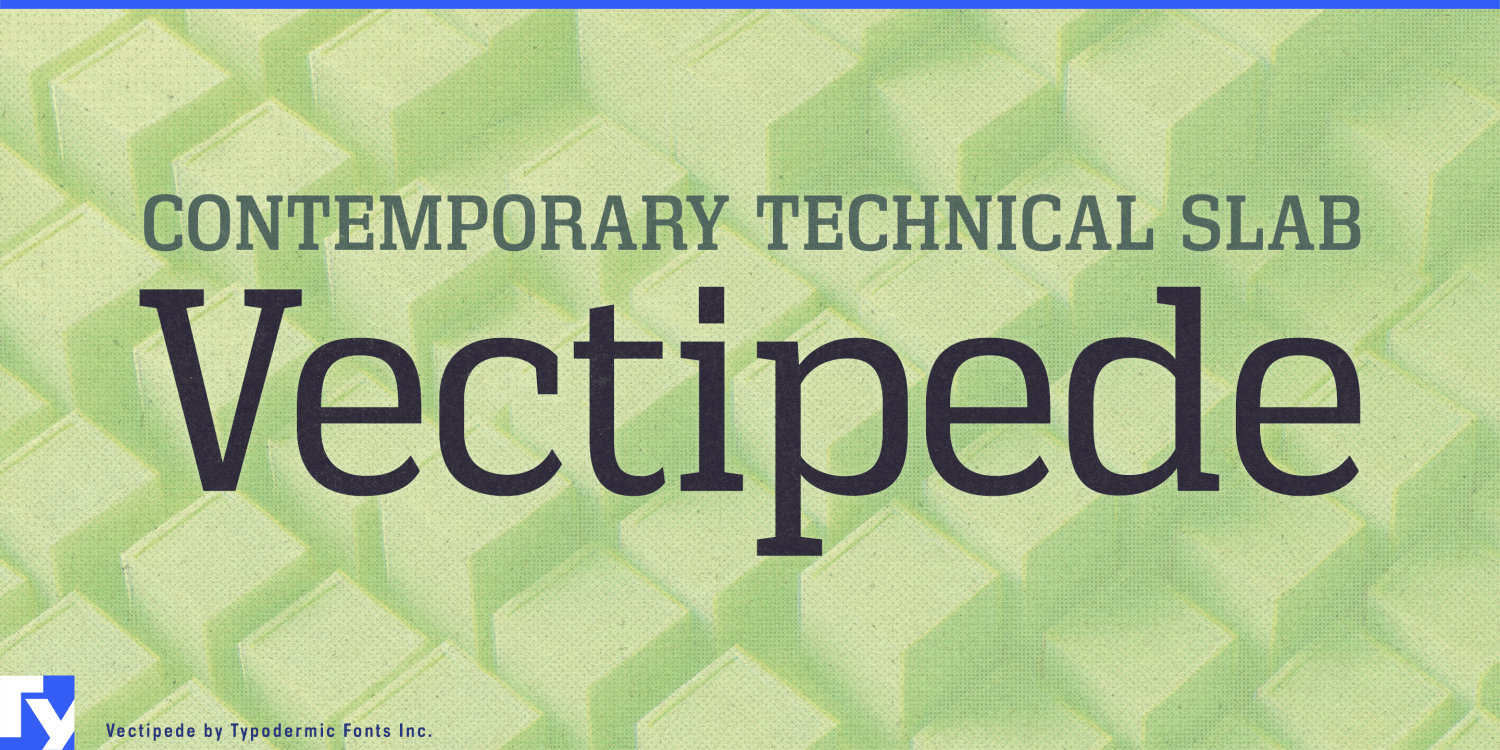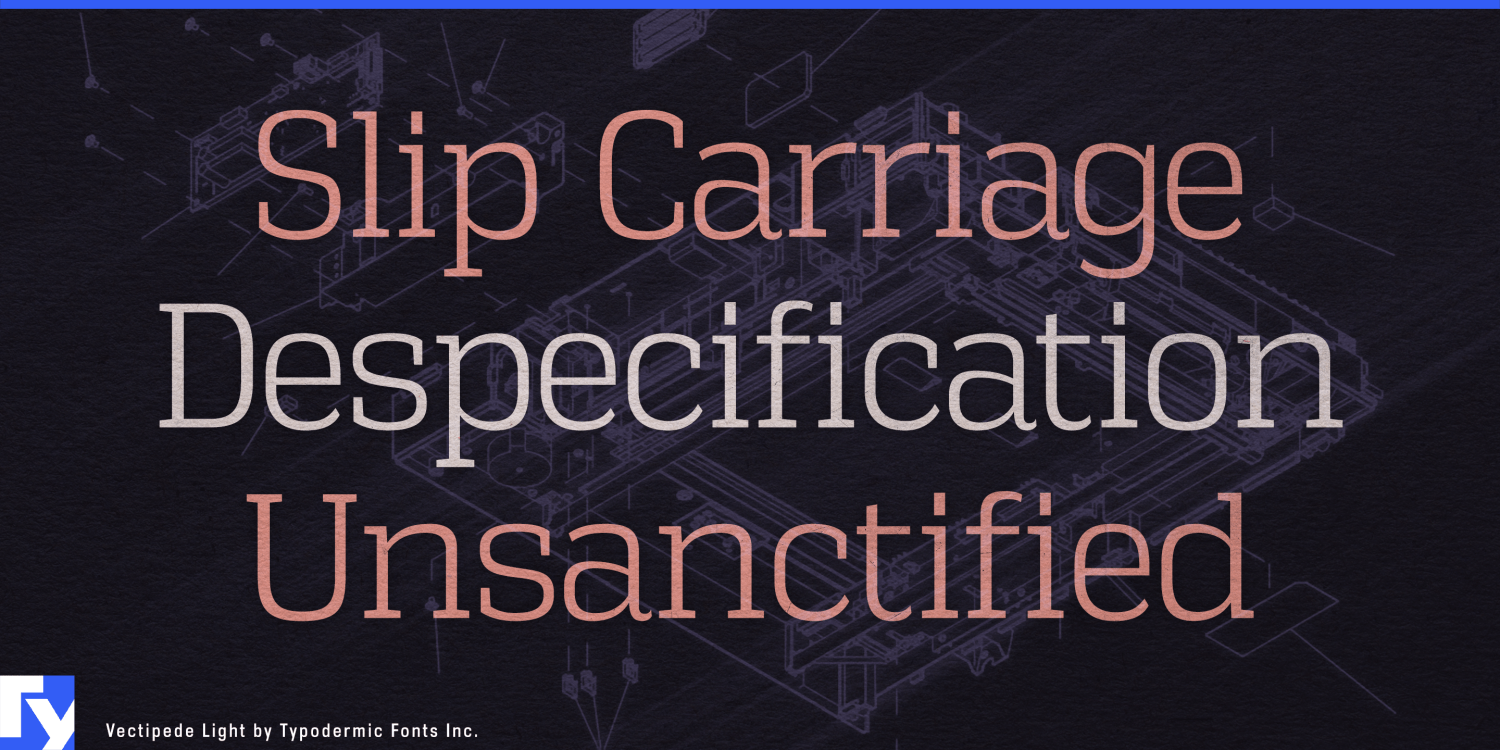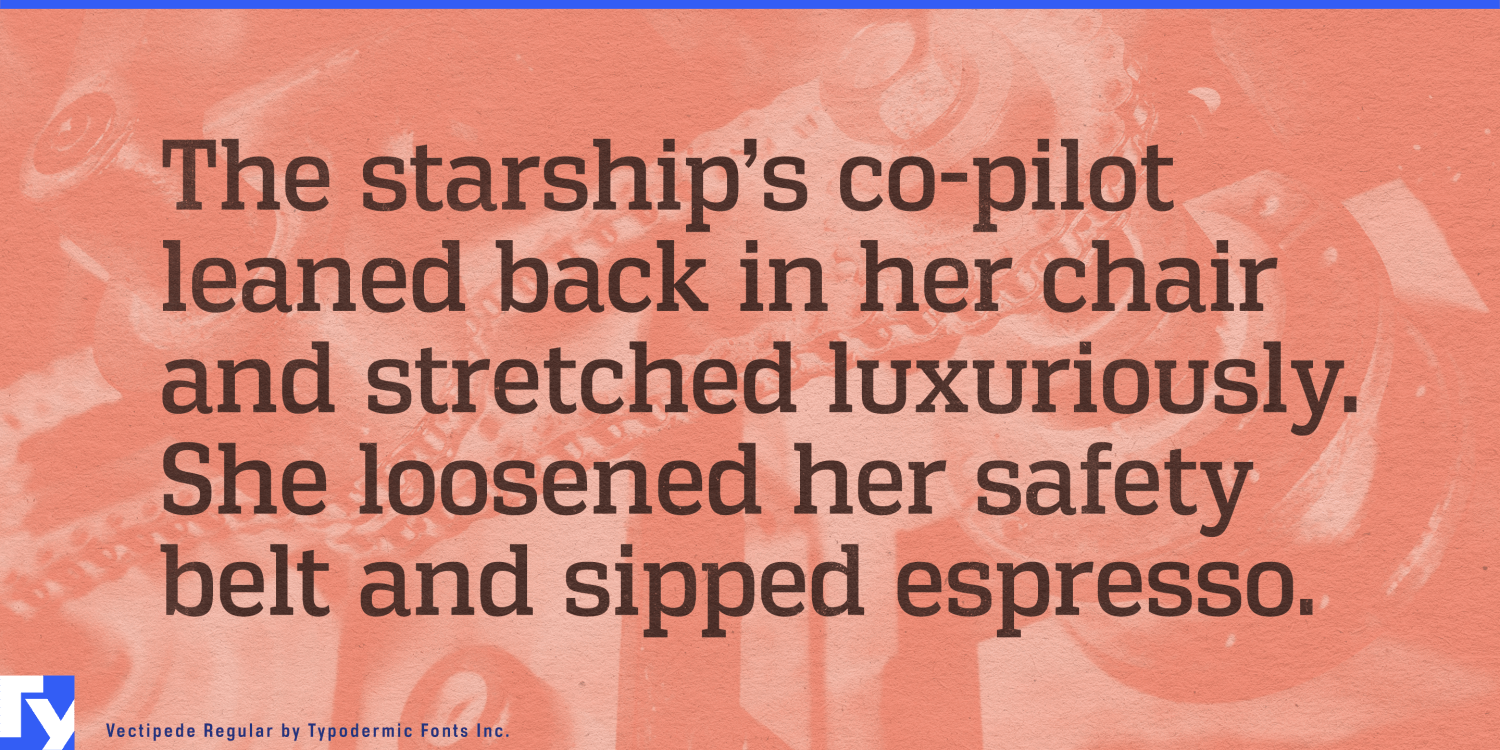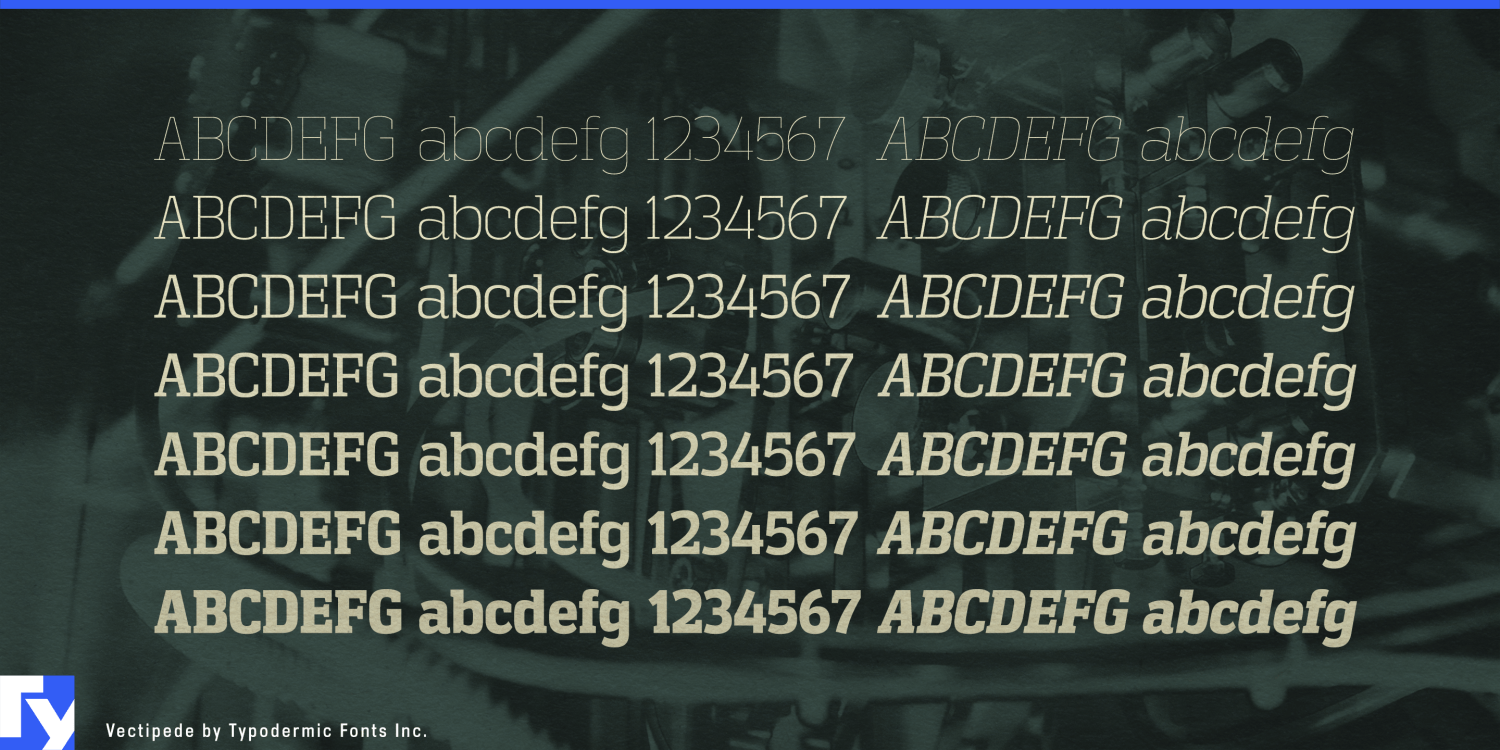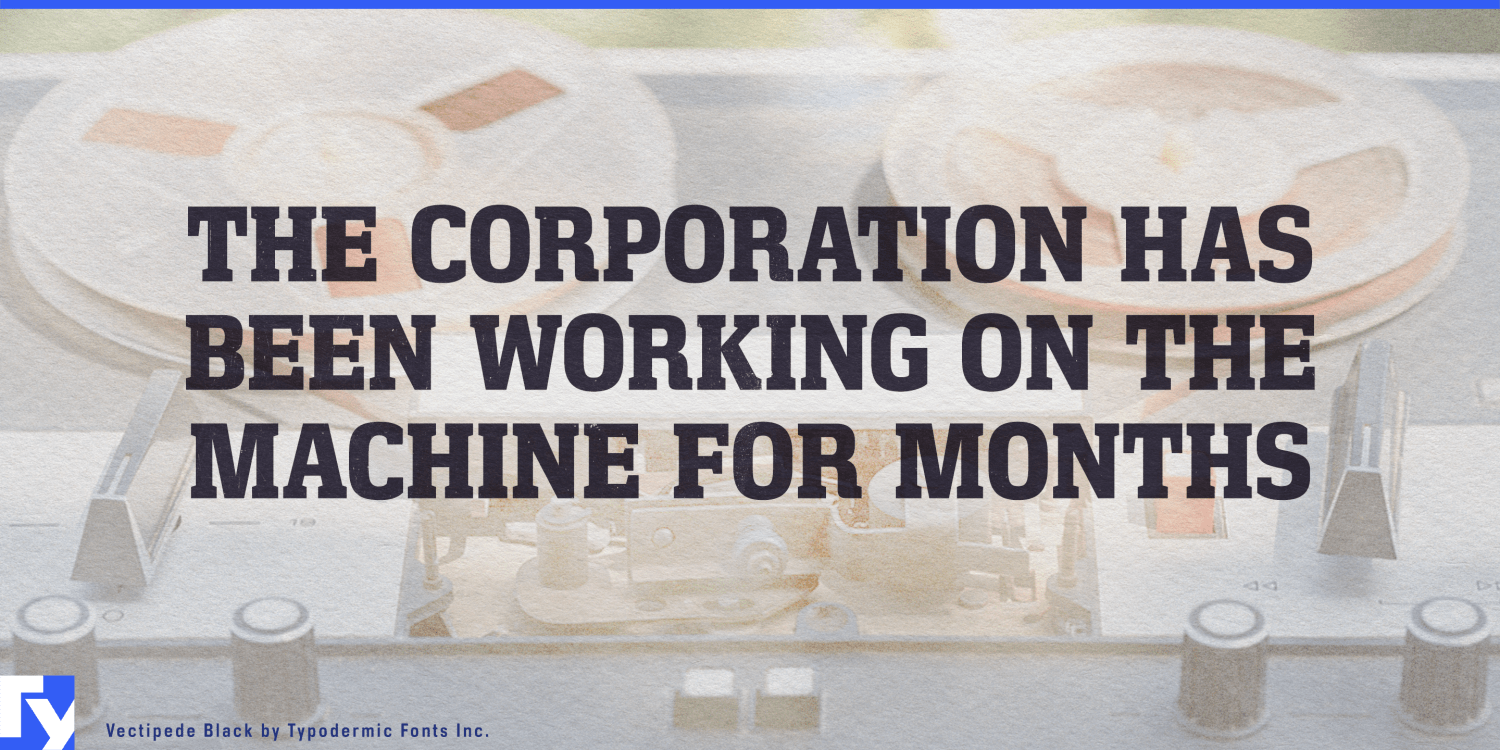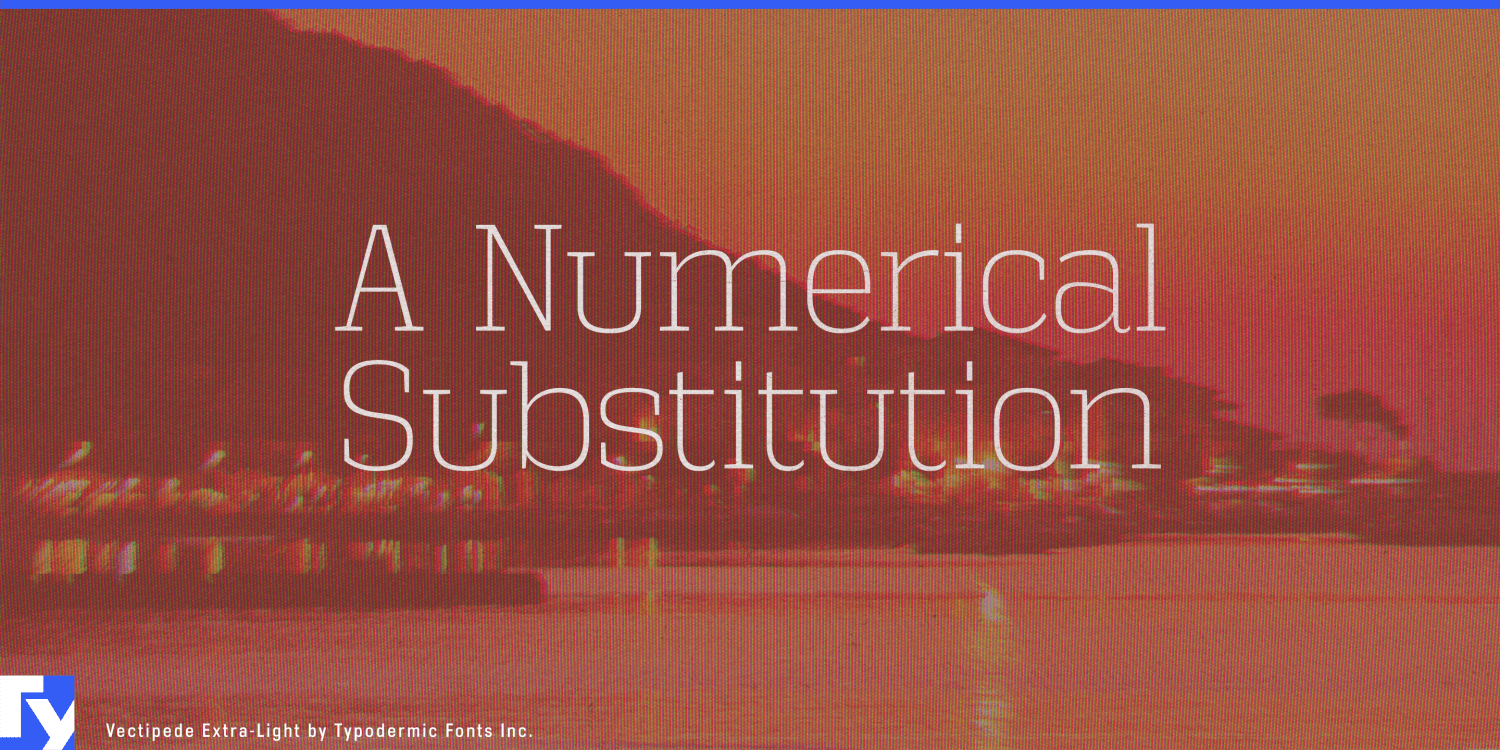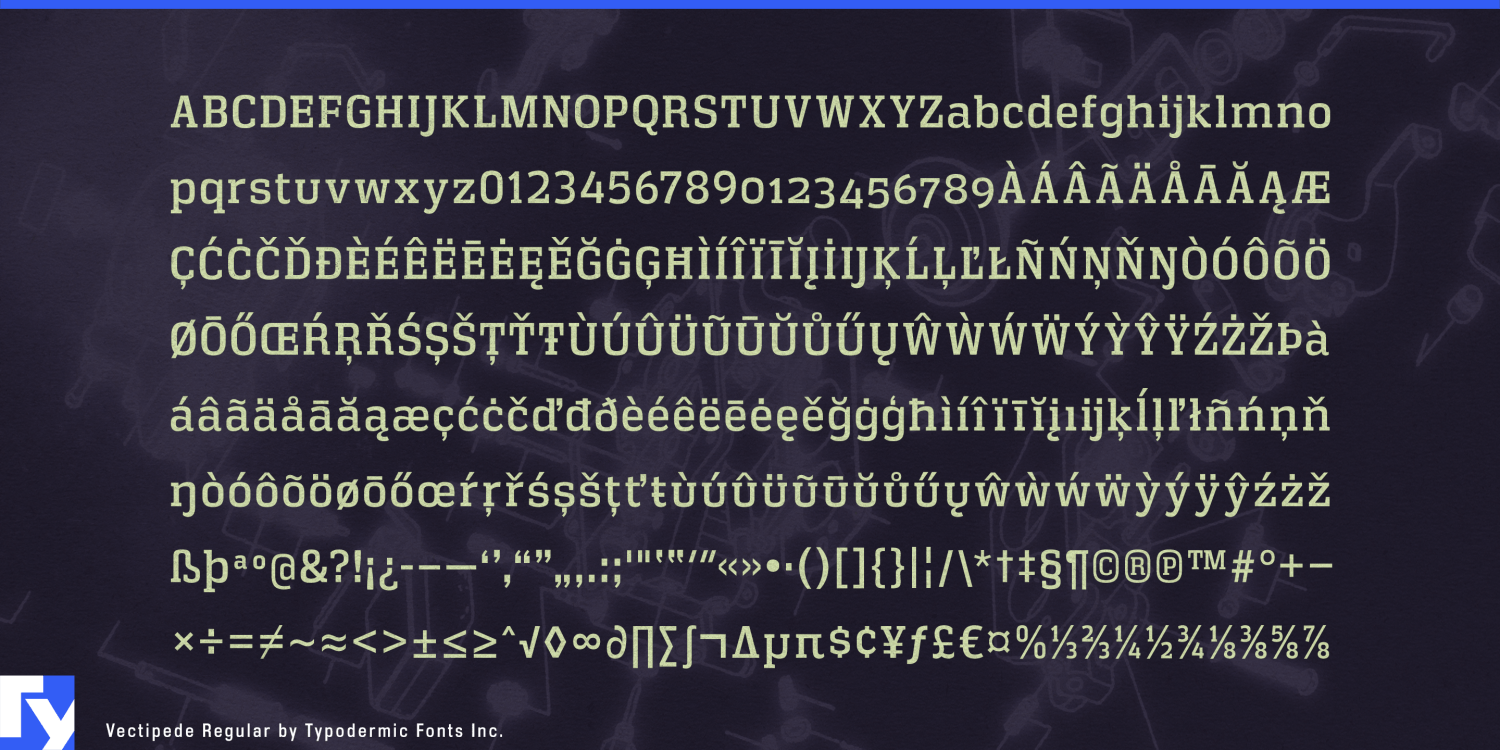
Vectipede
Technology looks different once it has to last for decades. A prototype can get by with sleek neutral typography or an experimental display face; a transmission corridor, semiconductor fab, research campus, or flood-resilience project needs something with more permanence. Traditional slab serifs can supply that authority, but they often bring historical or editorial associations that feel disconnected from contemporary engineering.
Vectipede combines slab-serif solidity with a softened superelliptical framework. Its squared proportions and substantial serifs give names and headlines physical weight, while the rounded geometry keeps the result connected to modern systems, manufacturing, and infrastructure rather than heritage industry.
Grid modernization is a particularly strong setting. HVDC corridors, transmission upgrades, substations, interconnectors, transformer programs, and grid-capacity initiatives need identities that can appear on engineering reports, public consultation boards, construction hoardings, project websites, and presentation screens. Vectipede gives those programs institutional weight without making them look bureaucratic or old-fashioned.
Semiconductor fabs and advanced-manufacturing campuses present a similar problem at enormous scale. New cleanroom buildings, advanced-packaging facilities, R&D centers, and manufacturing campuses need names and project graphics long before the equipment inside them begins production. Vectipede can handle facility identities, construction-site graphics, visitor-center exhibitions, supplier summits, expansion presentations, and opening-event typography while keeping the visual language connected to engineering.
Climate-resilience infrastructure brings that permanence into the civic realm. Coastal-defense programs, flood barriers, stormwater systems, water-security projects, and climate-adapted transport upgrades all have to communicate serious engineering and long-term public value. Vectipede can give project names, consultation exhibitions, engineering reports, construction graphics, and presentation titles contemporary civic weight without relying on a traditional institutional serif.
Major rail, tunneling, bridge, and civil-engineering projects offer another natural role. Metro extensions, high-speed rail corridors, tunnel programs, station redevelopments, and bridge replacements generate years of public-facing material before the finished infrastructure opens. Vectipede can carry project identities, construction-phase graphics, engineering exhibitions, architectural presentations, and public-information headings without pretending to be the final wayfinding typeface.
Applied-science and industrial research institutions extend the same language into battery institutes, semiconductor research centers, advanced-manufacturing organizations, grid laboratories, and materials-science programs.
Vectipede is most useful when technology has stopped being a concept and started becoming infrastructure: projects expected to occupy land, carry power, manufacture products, protect cities, or support research for years to come.